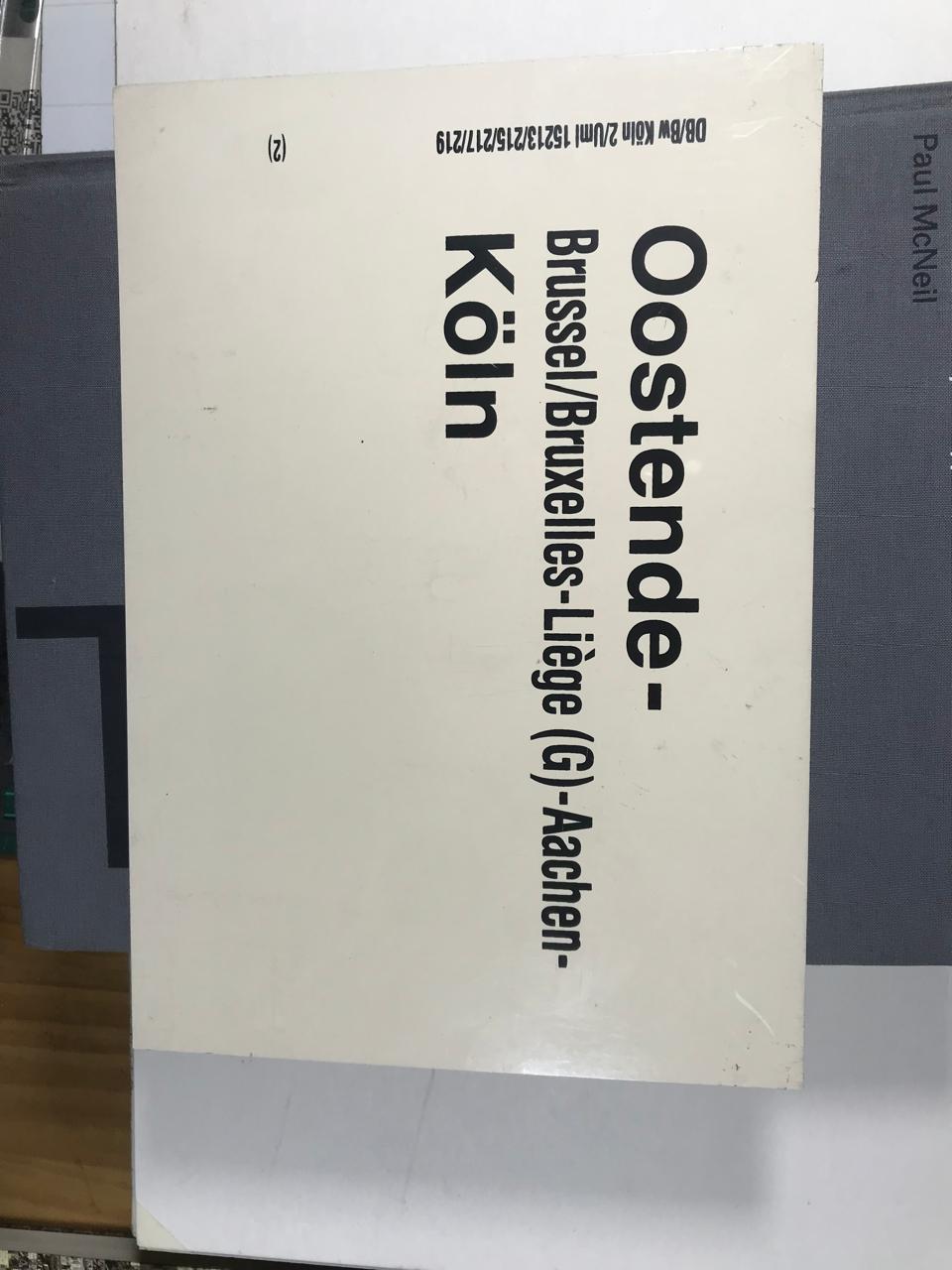
Curiously in the same period (2008-2010) DBahn used two kinds of alphabets that were palced inside tyhe cabin jsut tyo inform the passengers the main stop stations, as y=the lower case g shows two variations.
I have not archives that show the superb g tail (Image 1) and would like to know if this a DIN font (surely) and the typeface.
The first image is Deutsche Bahn Sans, by Christian Schwartz and Erik Spiekermann
Oostende- and Köln apper to be set in Helvetica Bold, while the center line of type is set in Helvetica Compressed Bold
That condensed Helvetica in Ostende image seems quite robust and new.
It tricked me.
I had the same reaction—it looks remarkably fresh for something designed in 1966.